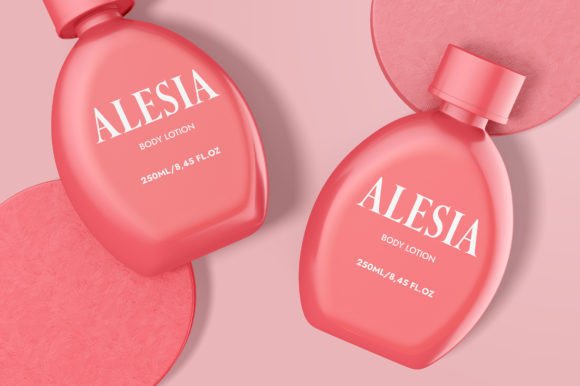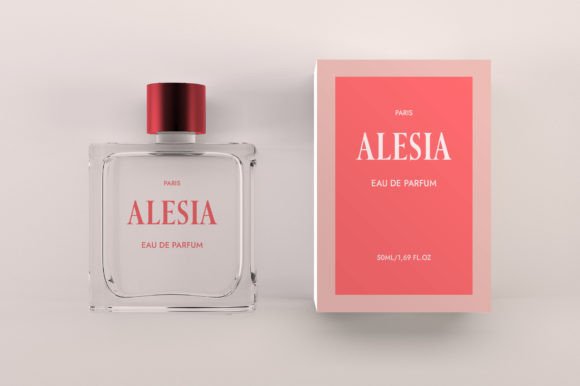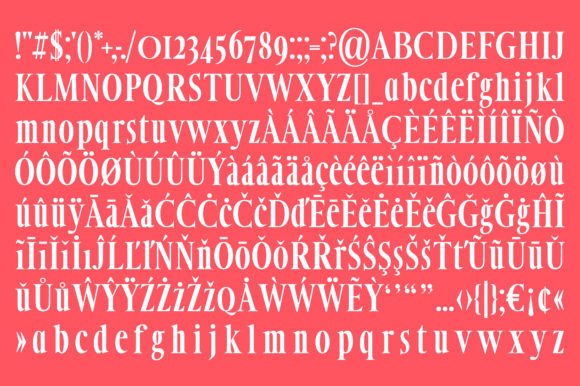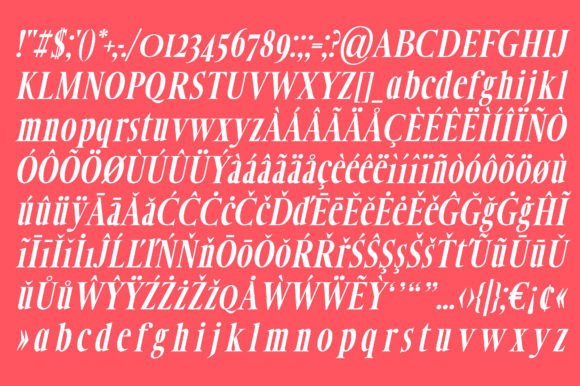
Alesia Font: Elevate Your Designs with Elegance and Sophistication
In the world of typography, a font can make or break a design. Alesia Font is a stunning serif typeface that embodies romance, minimalism, and elegance, making it the perfect choice for designers and crafters looking to elevate their creations. With its precise glyph structure and refined aesthetic, Alesia Font is ideal for a wide range of applications, from packaging design to website banners.
The Characteristics of Alesia Font
Alesia Font is a masterclass in typographic design. Its elegant and minimalist approach makes it an excellent choice for designs that require a touch of sophistication. The font’s serif structure adds a level of refinement, while its clean lines and precise glyphs ensure that it remains highly legible, even at smaller sizes.
One of the standout features of Alesia Font is its versatility. Whether you’re working on a packaging design, fragrance label, or website banner, this font adapts seamlessly to any style or theme. Its ability to convey a sense of luxury and elegance makes it particularly well-suited for high-end brands and designs that require a premium feel.
Applications of Alesia Font
Alesia Font’s range of applications is vast and varied. Here are just a few examples of how you can use this beautiful font to elevate your designs:
- Packaging Design: Alesia Font is perfect for packaging design, adding a touch of elegance and sophistication to product labels and packaging materials.
- Fragrance Design: The font’s refined aesthetic makes it an excellent choice for fragrance labels and advertising materials.
- Titling: Alesia Font’s elegant serif structure makes it ideal for titling and headings, adding a level of refinement to any design.
- Cosmetics Design: The font’s luxurious feel makes it well-suited for cosmetics design, from product labels to website banners.
- Website Banners: Alesia Font’s clean lines and precise glyphs ensure that it remains highly legible on digital platforms, making it perfect for website banners and online advertising.
Why Choose Alesia Font?
So why choose Alesia Font over other serif typefaces? Here are just a few reasons why designers and crafters are falling in love with this beautiful font:
- Elegance: Alesia Font’s refined aesthetic adds a level of sophistication to any design.
- Versatility: The font’s versatility makes it suitable for a wide range of applications, from packaging design to website banners.
- Legibility: Alesia Font’s precise glyph structure ensures that it remains highly legible, even at smaller sizes.
- Unique: Alesia Font’s unique blend of romance, minimalism, and elegance sets it apart from other serif typefaces.
Tips for Using Alesia Font
To get the most out of Alesia Font, here are a few tips to keep in mind:
- Pair with contrasting fonts: Alesia Font pairs beautifully with contrasting fonts, such as sans-serif typefaces or script fonts.
- Experiment with sizes: Alesia Font’s legibility makes it suitable for use at a wide range of sizes, from small captions to large headings.
- Use for emphasis: Alesia Font’s elegant serif structure makes it perfect for use in emphasis, such as headings and titles.
Alesia Font is a stunning serif typeface that offers a unique blend of romance, minimalism, and elegance. Its versatility, legibility, and refined aesthetic make it the perfect choice for designers and crafters looking to elevate their creations. Whether you’re working on packaging design, fragrance labels, or website banners, Alesia Font is sure to make a lasting impression. So why not give it a try and see the difference it can make in your designs?